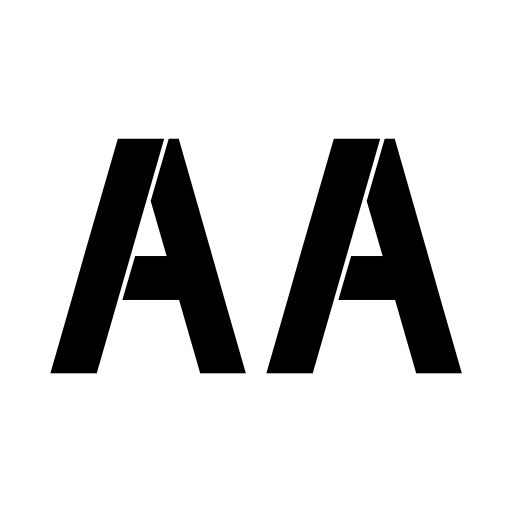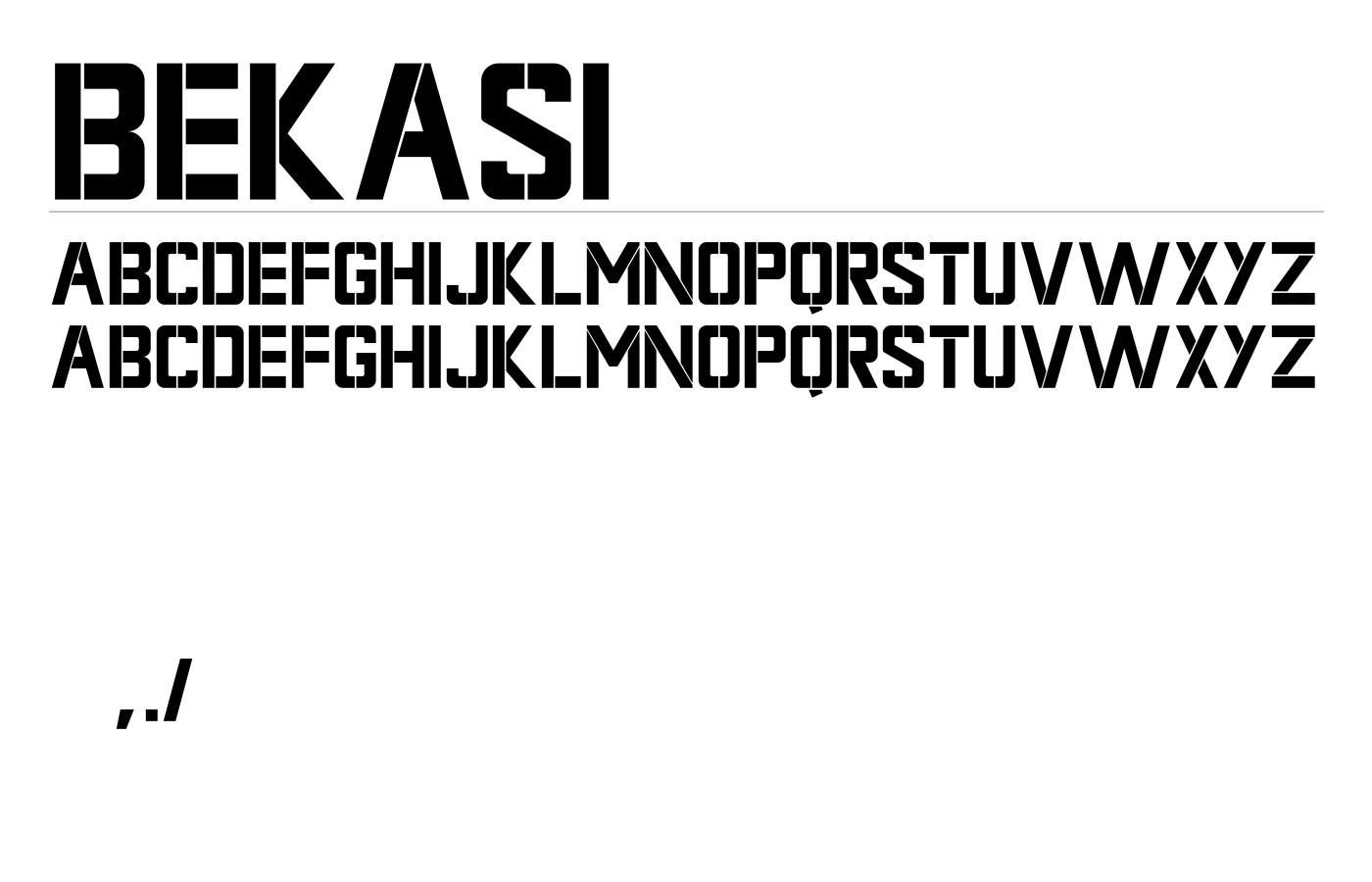
Bekasi is a bold, condensed sans serif font with strong geometric shapes and a stencil-style cutout design that gives it a modern, industrial feel. Its all-uppercase letterforms feature sharp angles and clean lines, making it eye-catching and impactful, ideal for headlines, logos, posters, and branding that needs a sleek, futuristic touch. This font works well in settings that demand bold clarity and a contemporary edge, especially in urban, tech, or sports-related designs.
Bekasi Font
About Bekasi Font